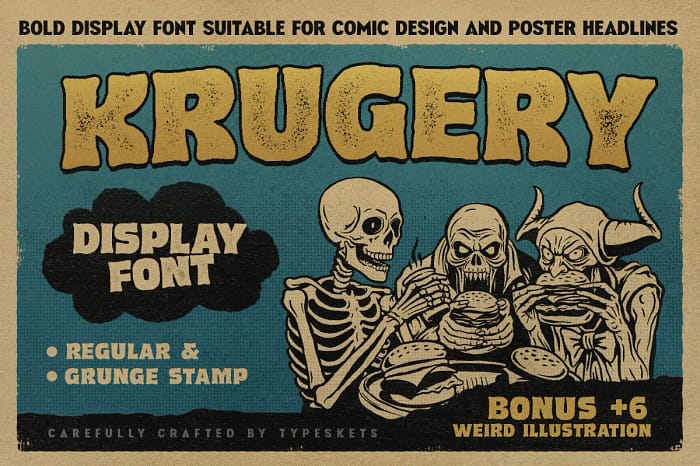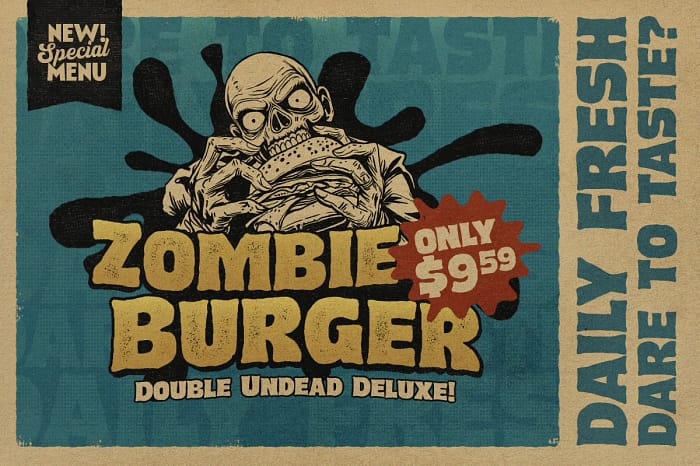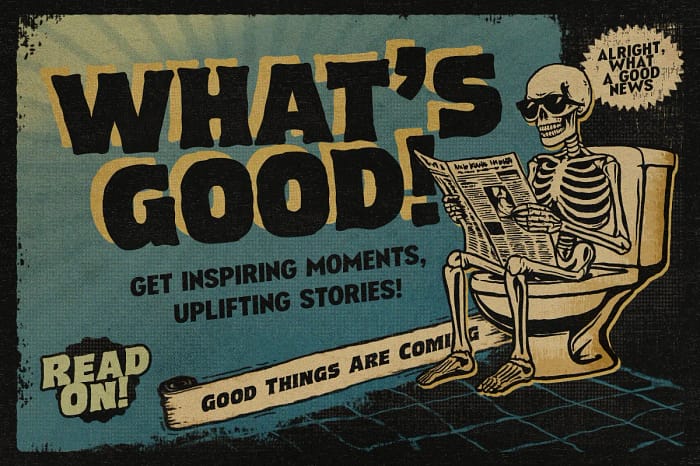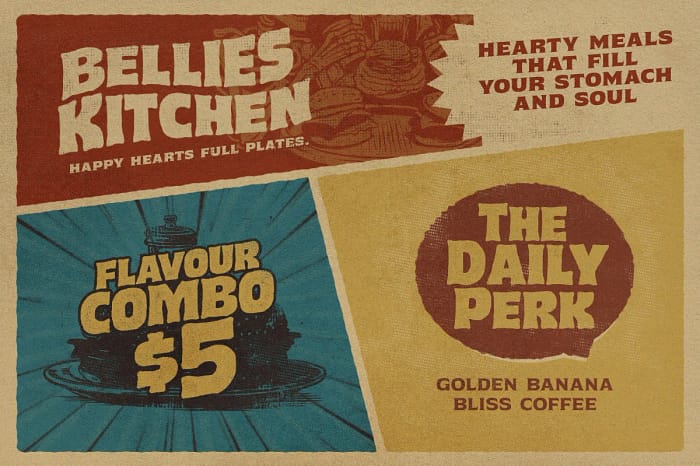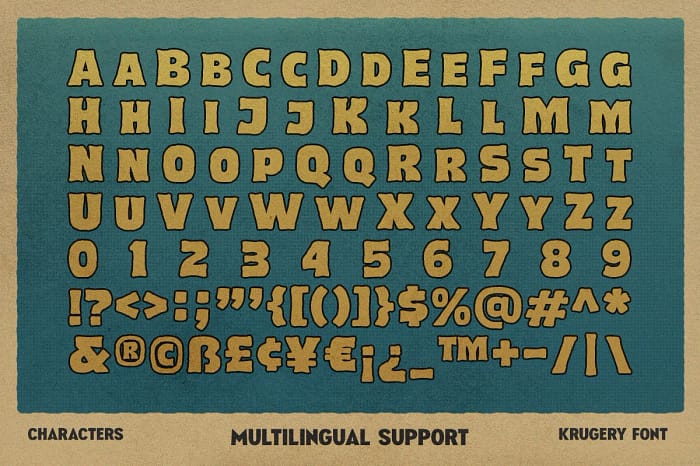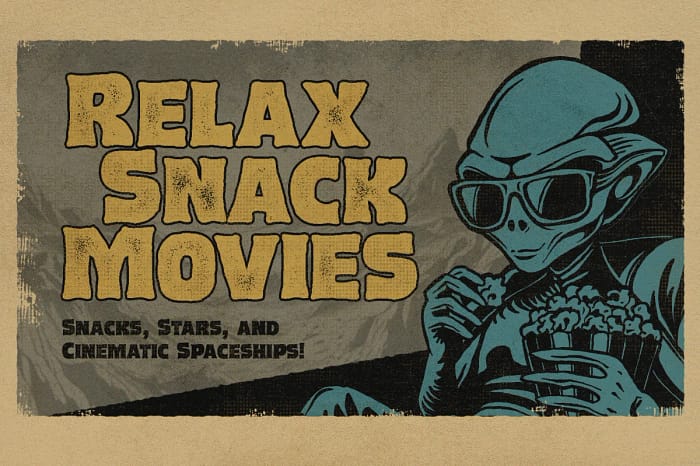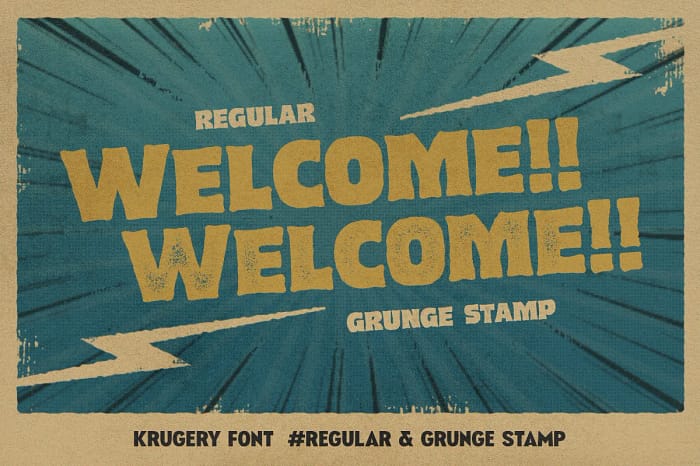
KRUGERY
“Krugery” is a bold and eye-catching display font, perfect for comic designs, poster headlines, and quirky, offbeat projects.
“Krugery” is a bold and eye-catching display font, perfect for comic designs, poster headlines, and quirky, offbeat projects. Available in two styles—Regular and Grunge Stamp—it adds versatility to your creative toolkit. The font’s playful yet edgy aesthetic makes it ideal for vintage-inspired or unconventional themes. As a bonus, it includes six weird and unique illustrations to complement your designs and add an extra layer of character.